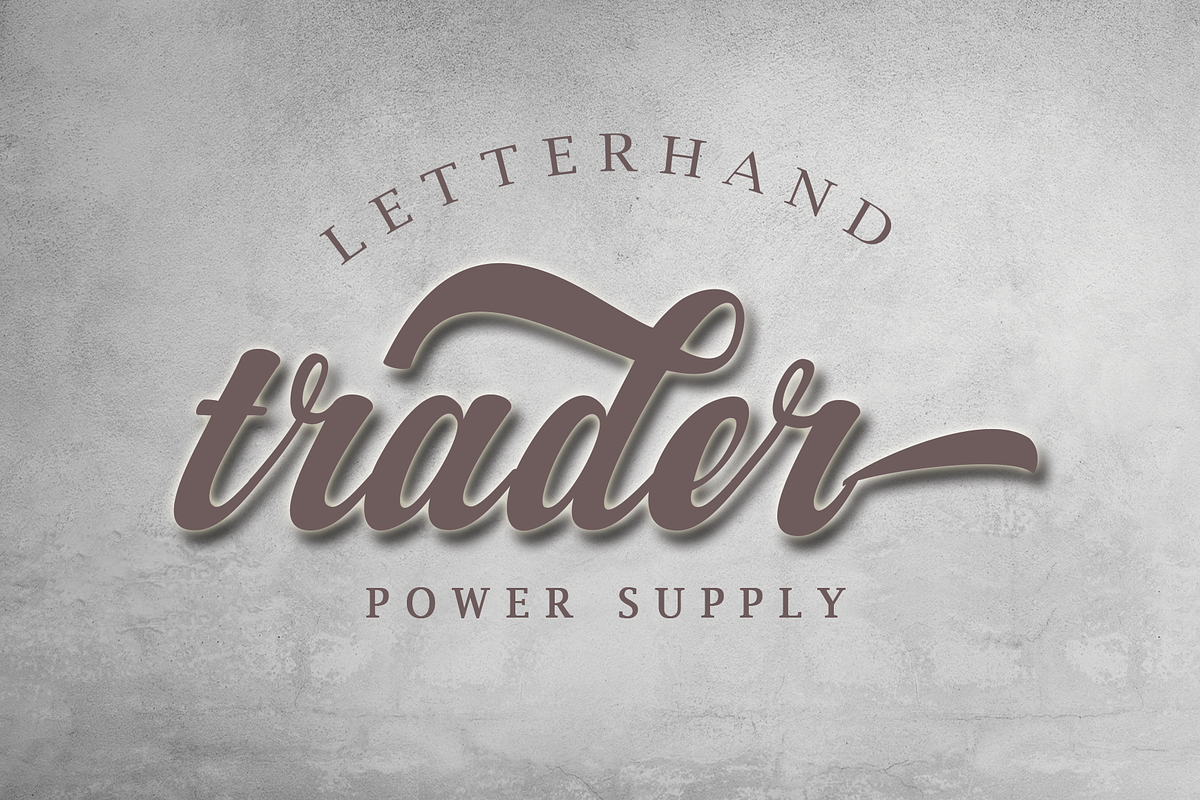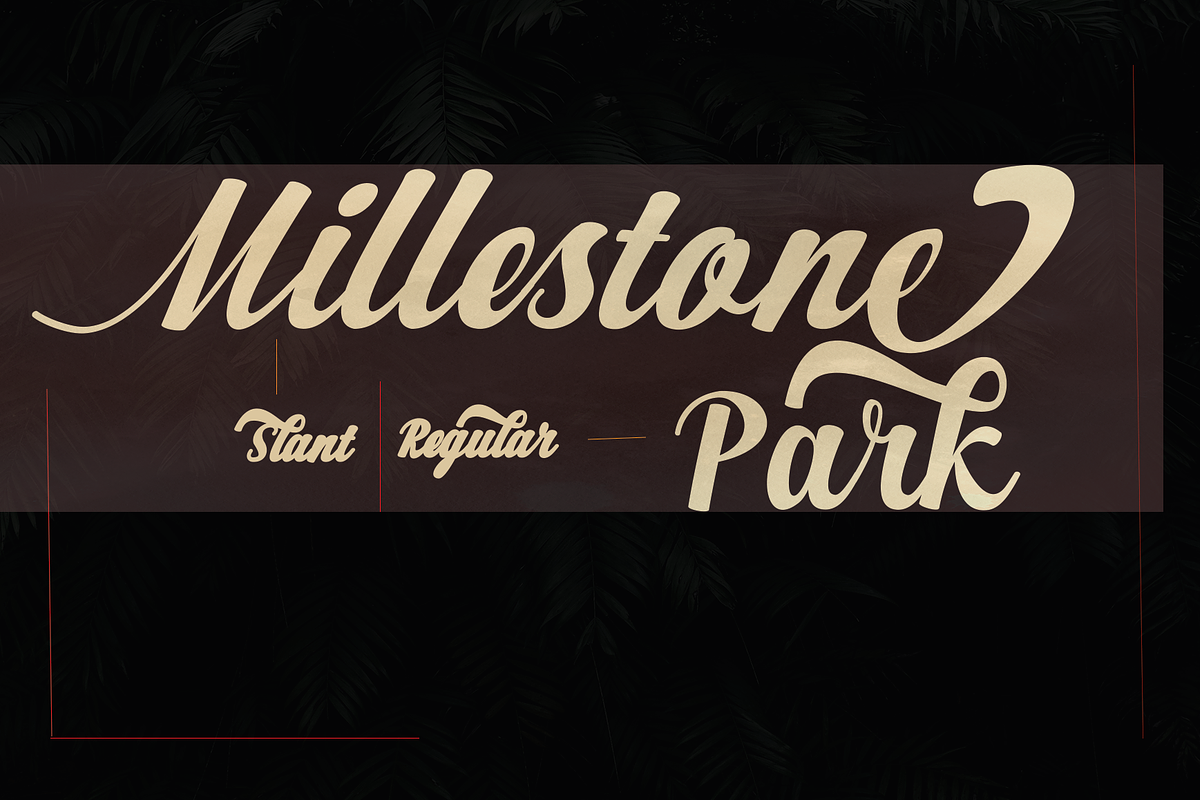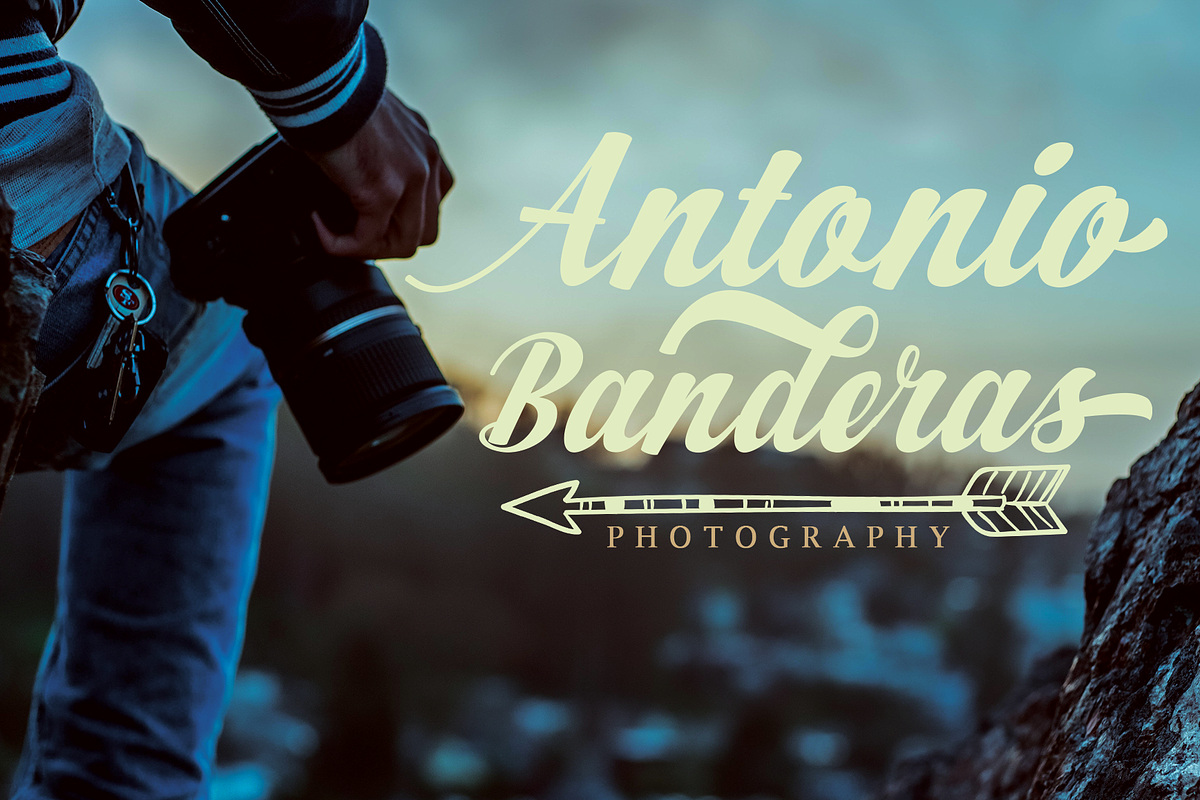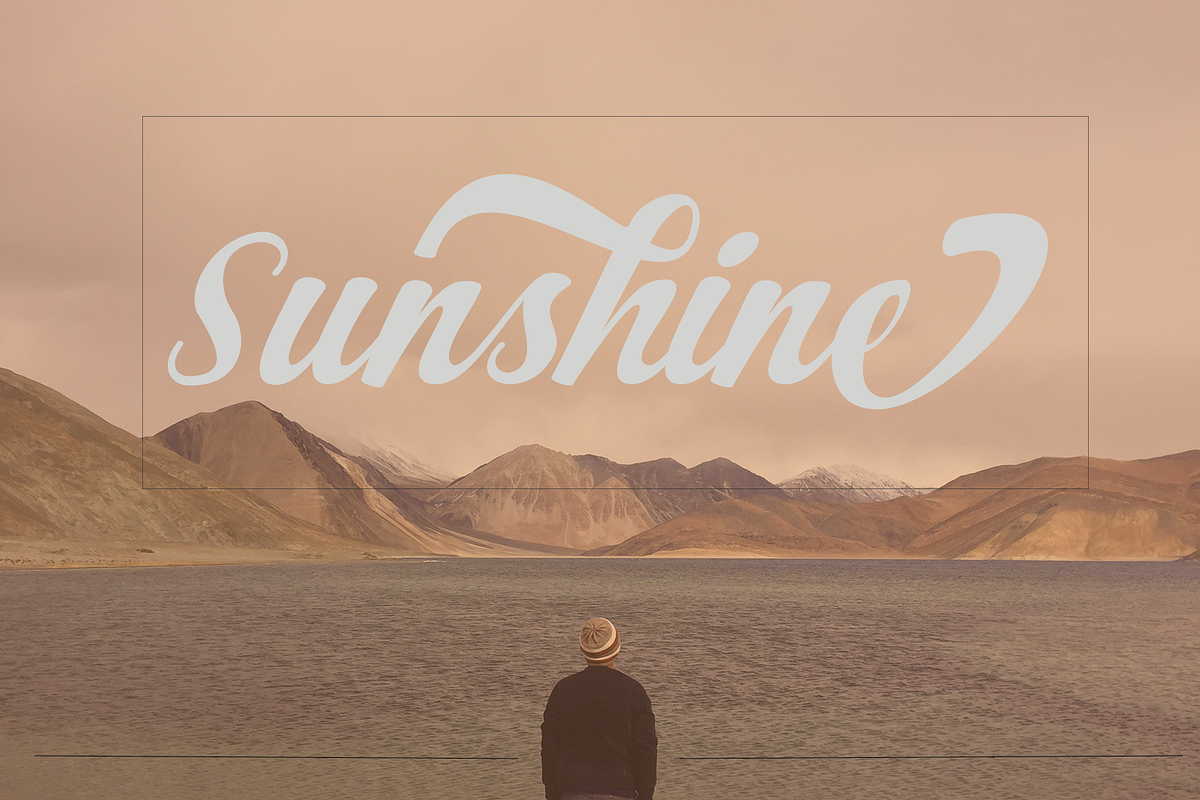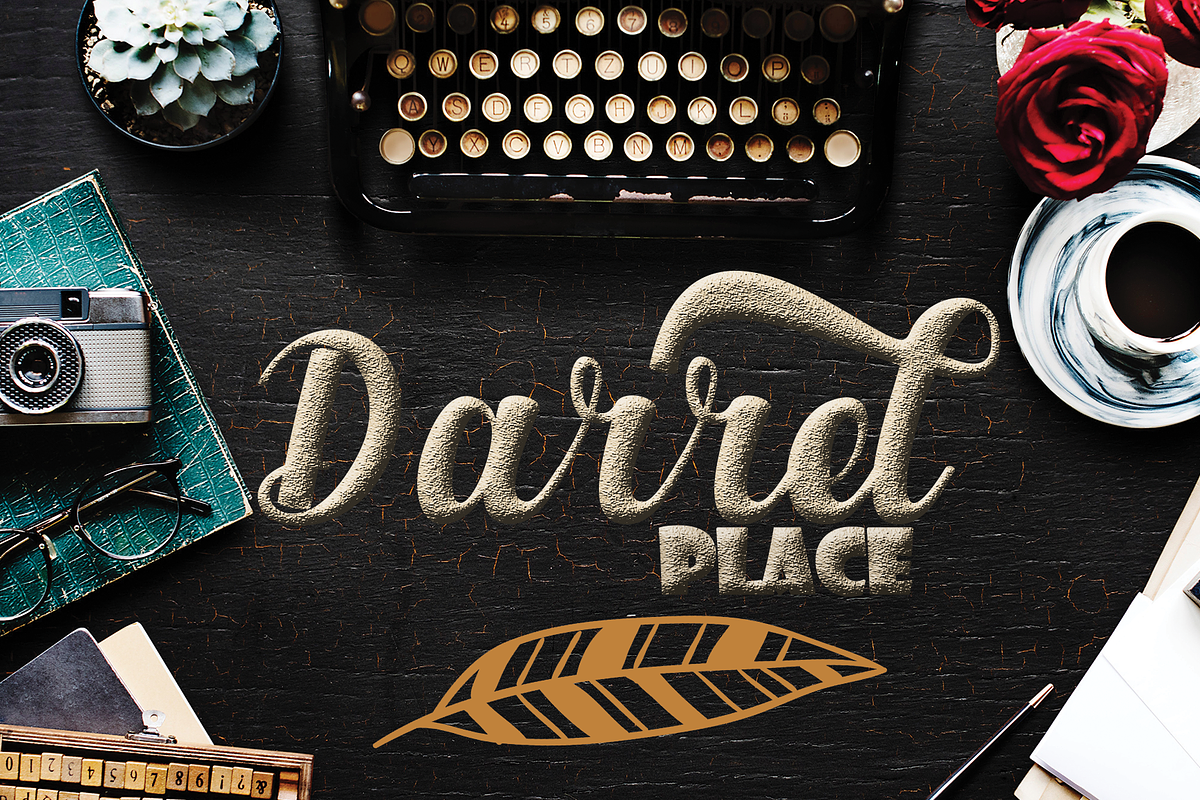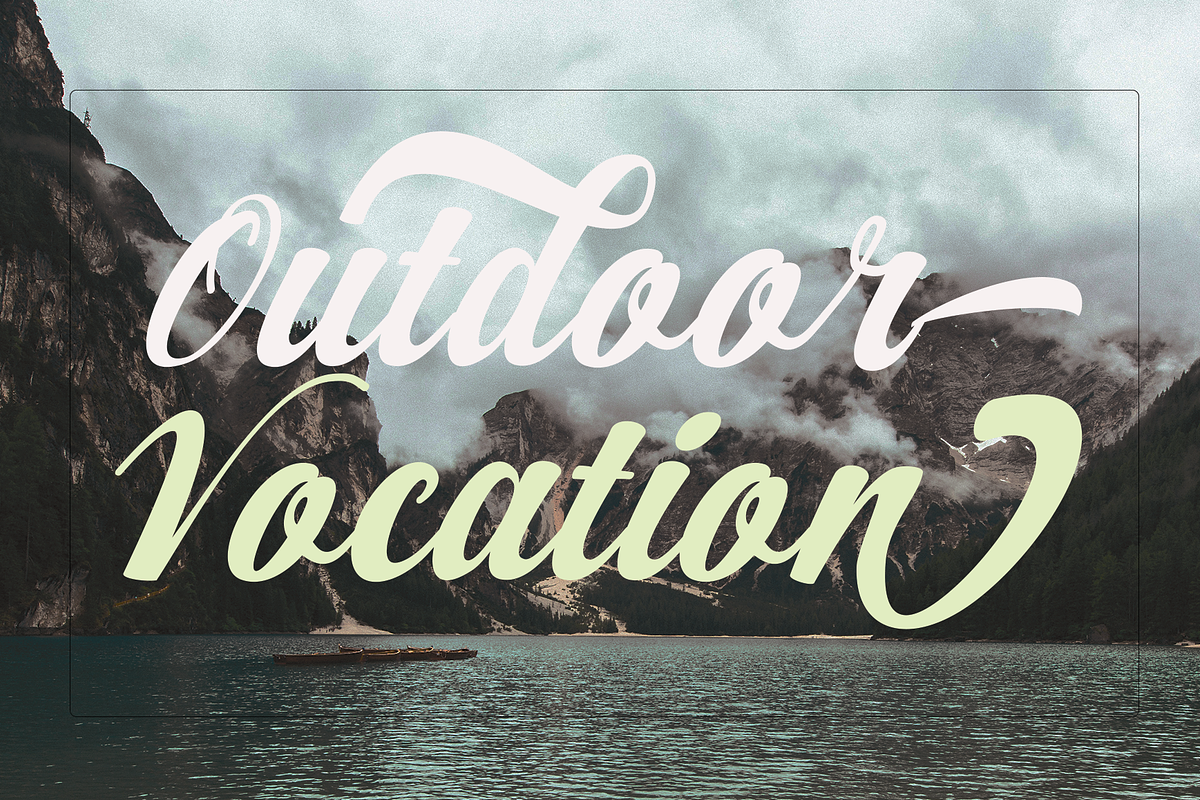
Alexander 2 Style Font
INTRODUCING...! Alexander Regular & Slant Style
Alexander is a script typeface with personality. You can use it as a logo, badge, insignia, packaging, headline, poster, t-shirt/apparel, greeting card, and wedding invitation. The flowing characters are ideal to make an attractive messages, mix and match Montana with a bunch of alternative characters to fit your project.